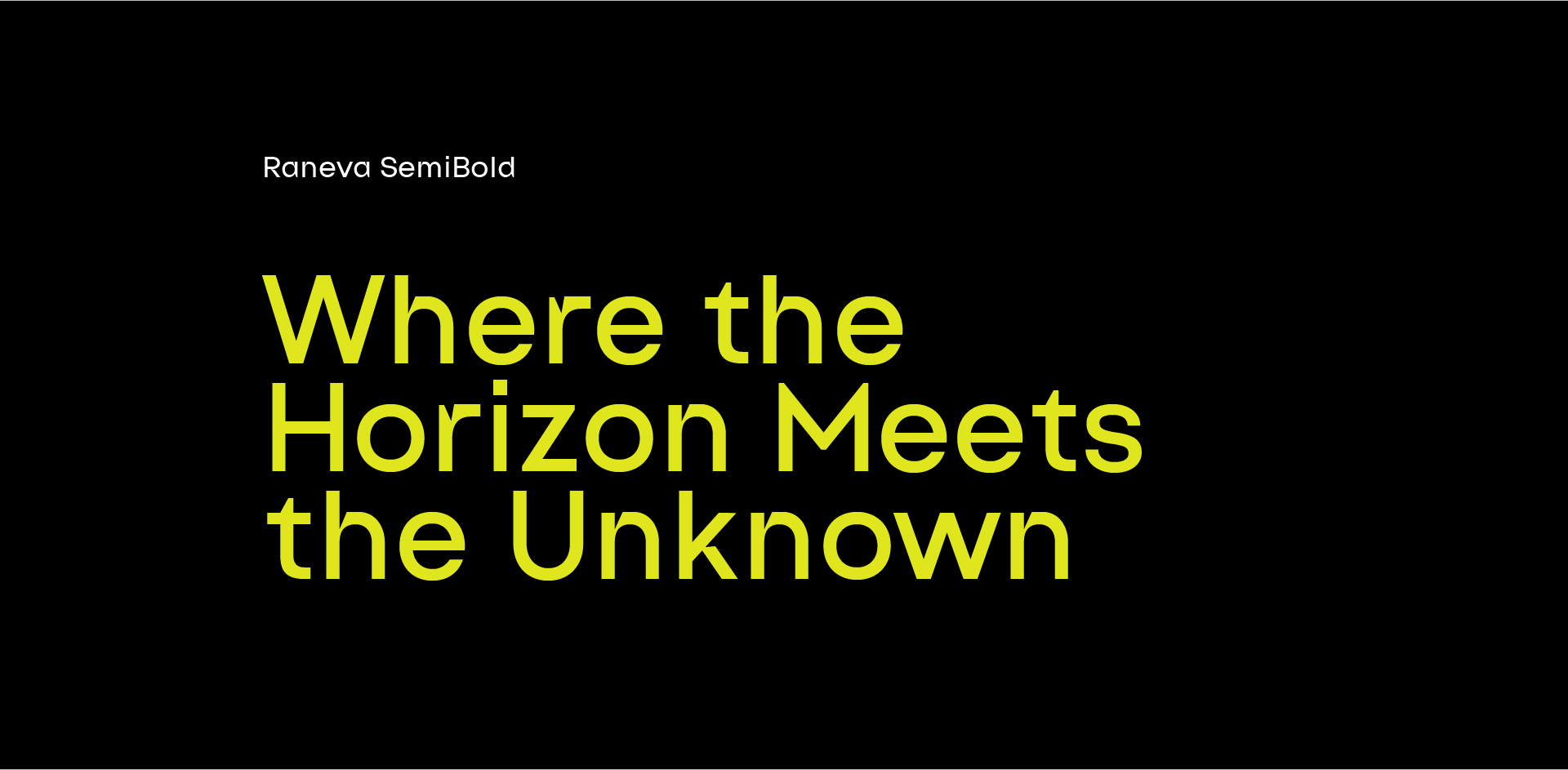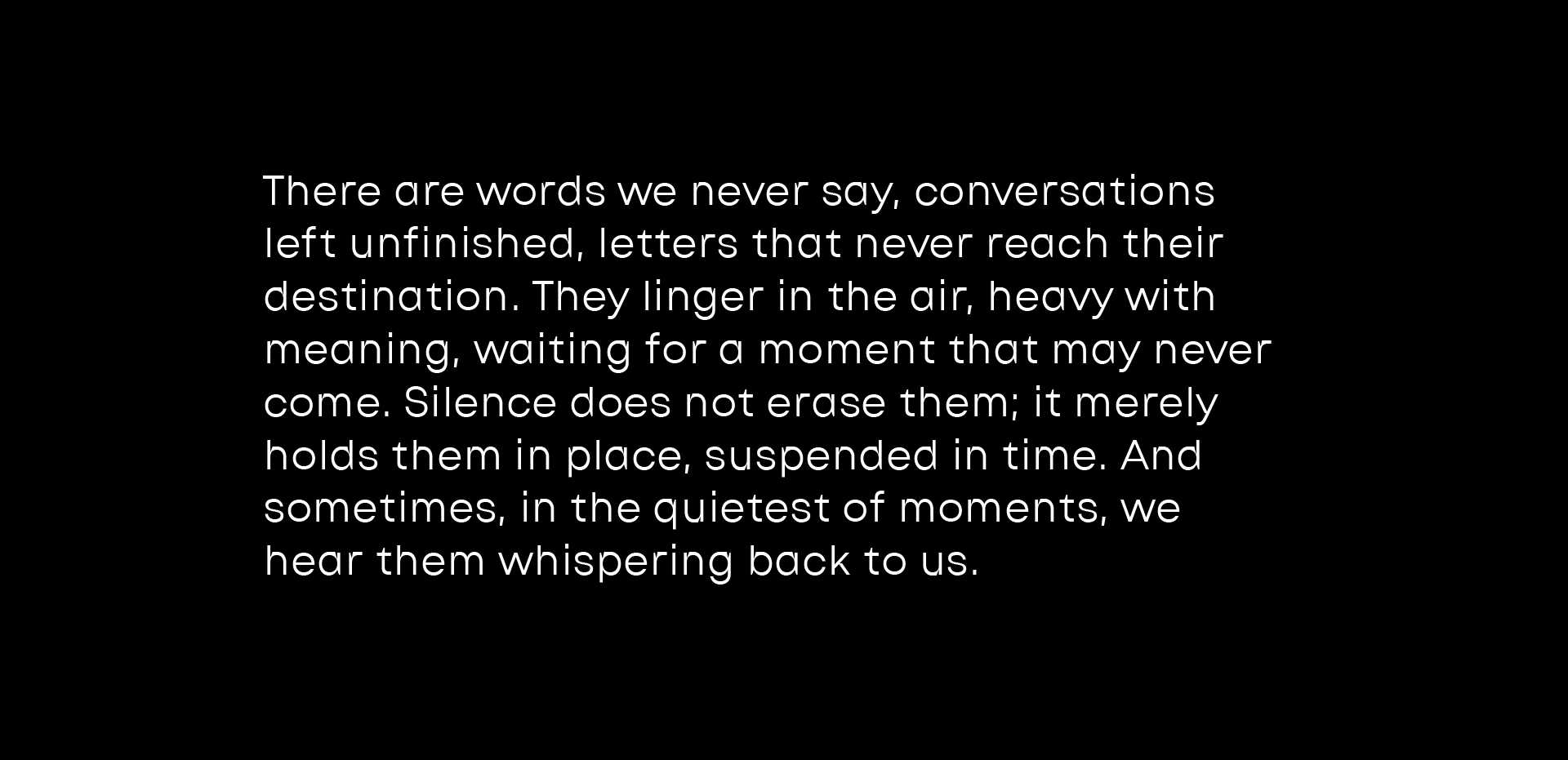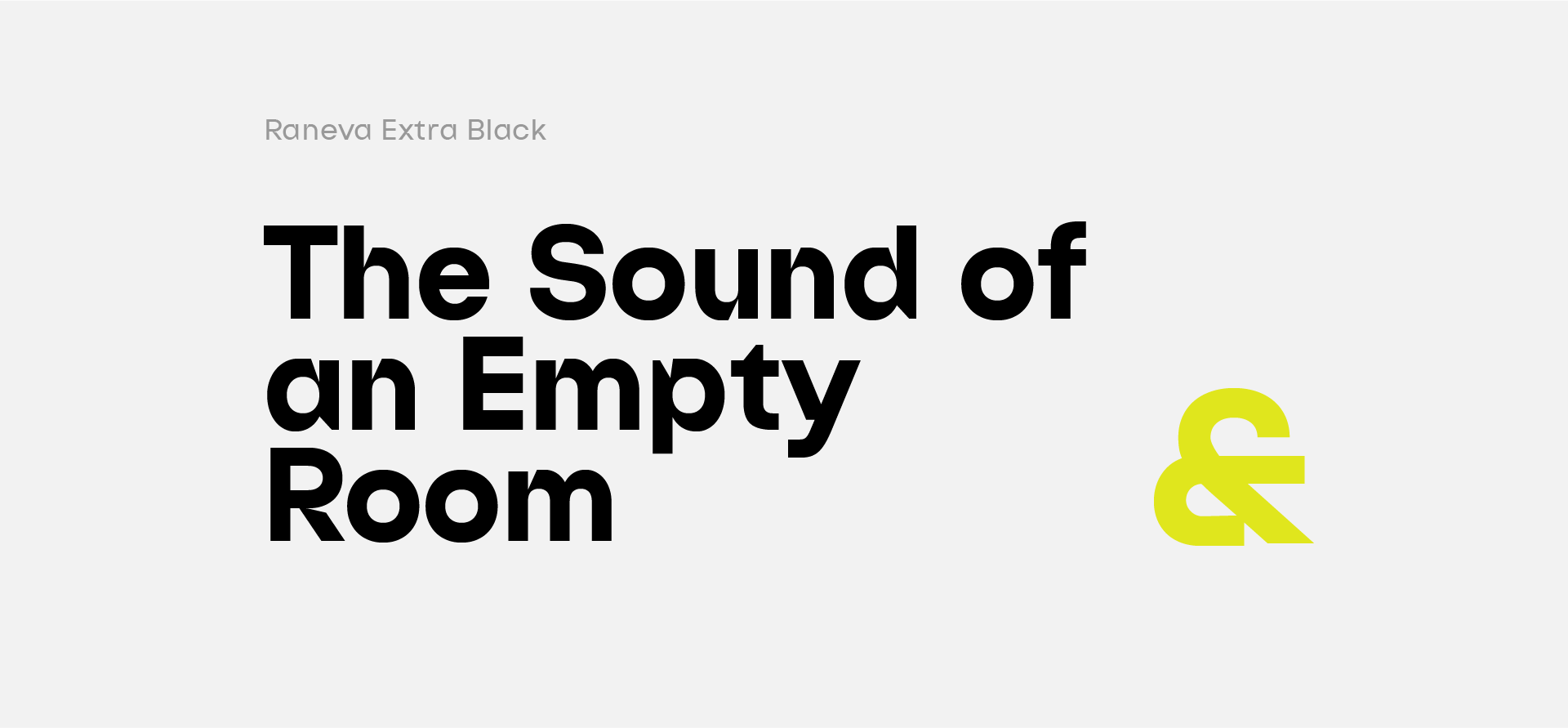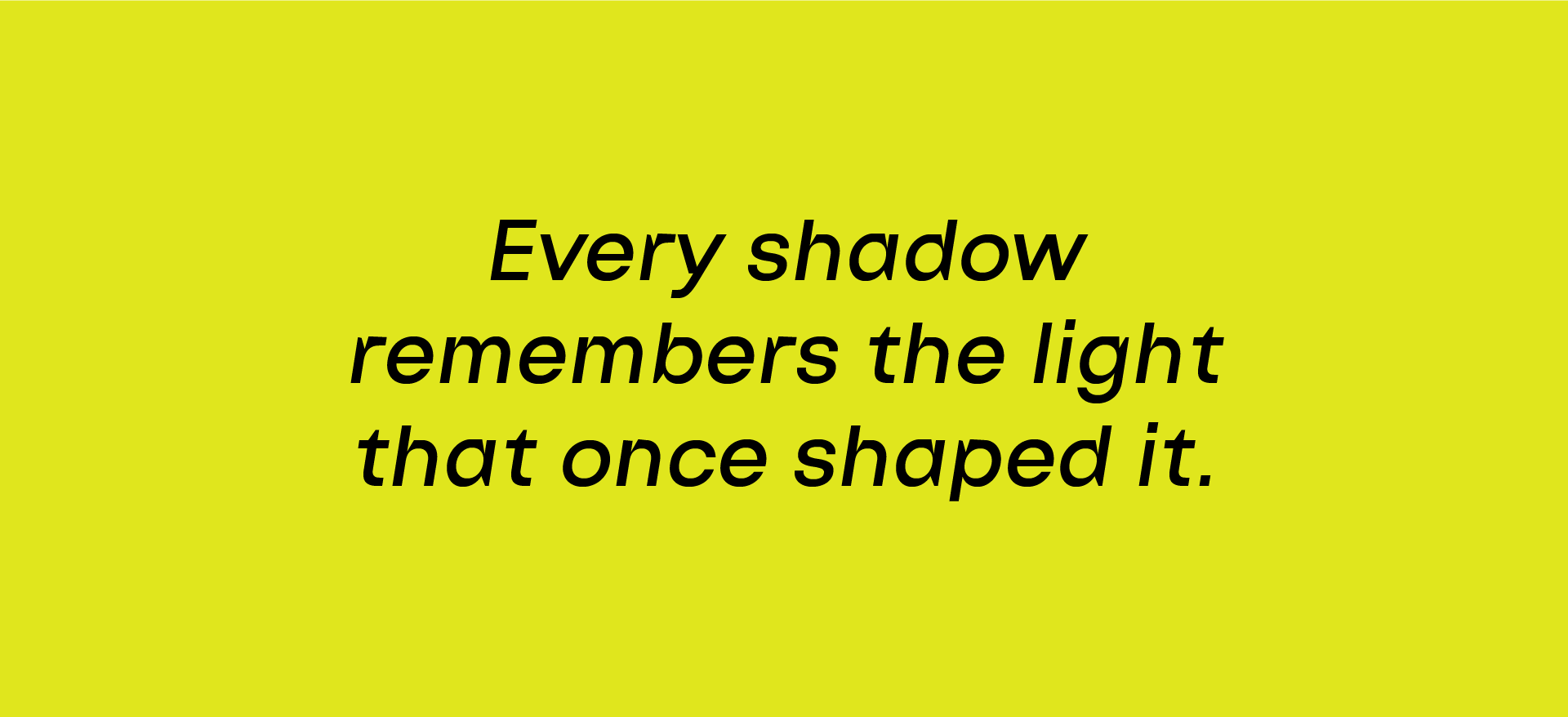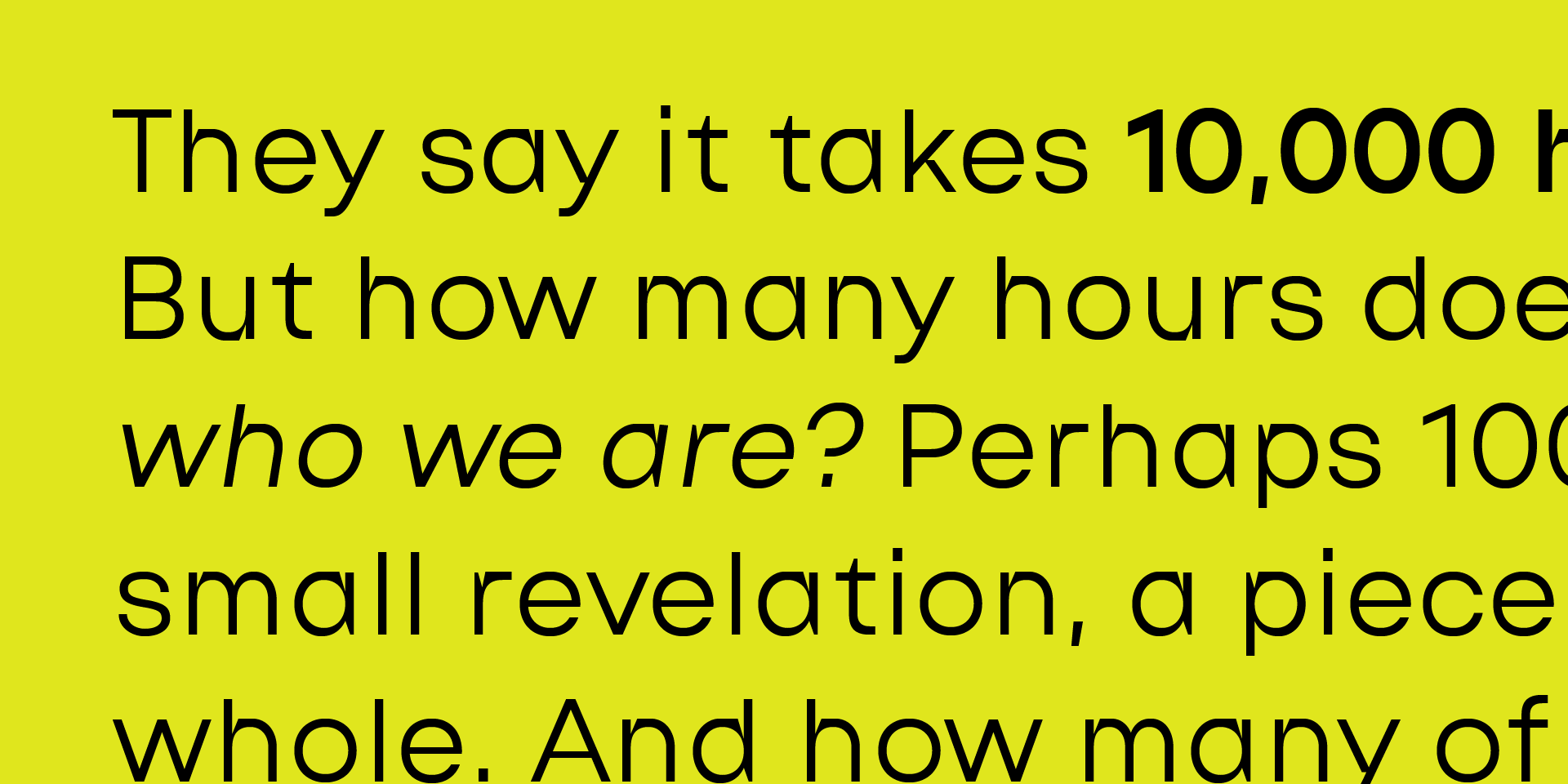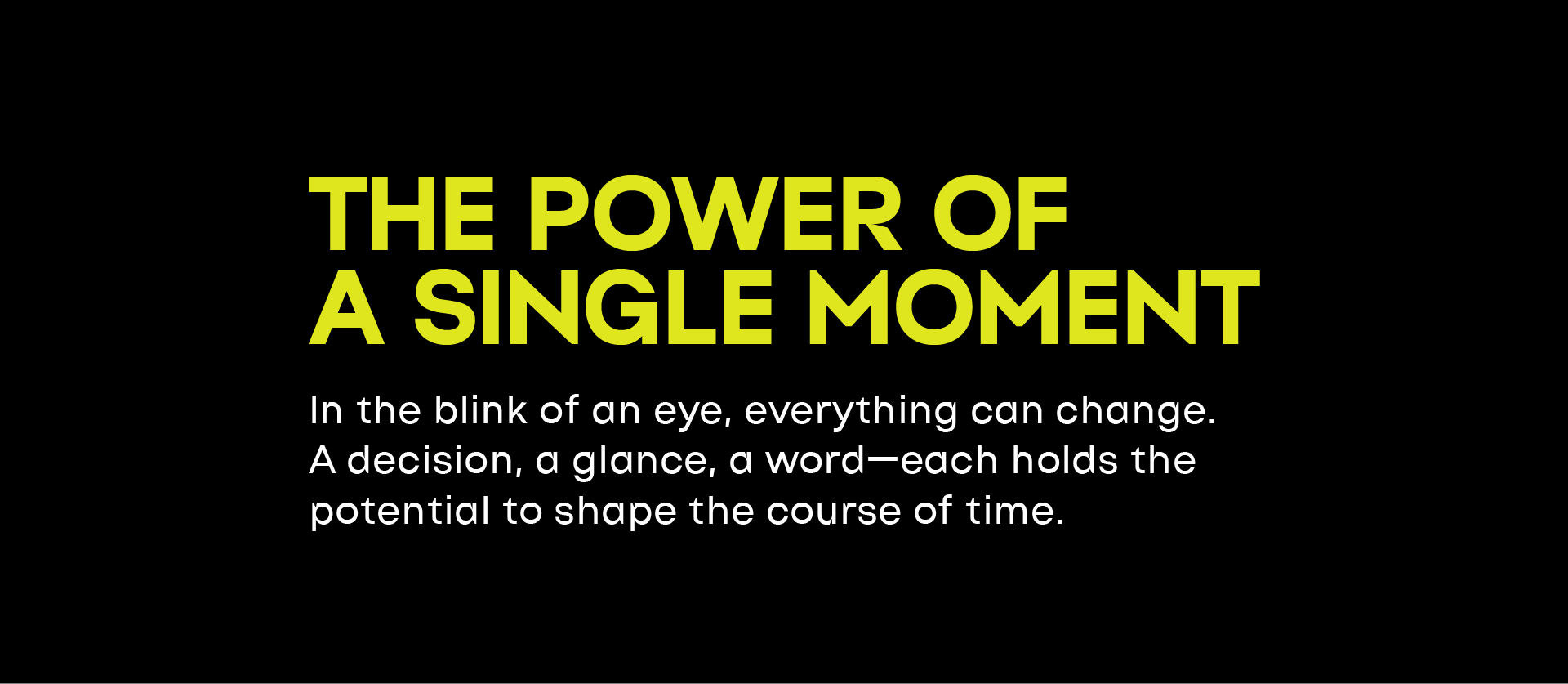
Raneva Bold - Free Font
Introducing Raneva, a new sans serif typeface from Serdar Öztürk
The full version of Raneva features 16 fonts including uprights & italics.